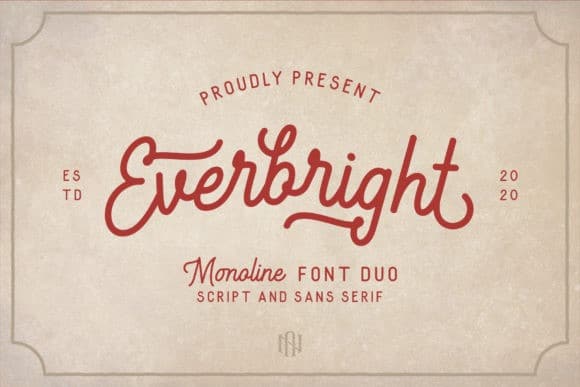
Everbright Display Font
Everbright Display Font is an exquisite handwritten font, masterfully designed to become a true favorite. It’s designed and shared by Nyalaapi. Fall in love with its incredibly distinct and timeless style and use it to create spectacular designs!. Everbright is perfectly suited to signature, stationery, logo, typography quotes, magazine or book cover, website header, flyer, clothing, branding, packaging design and more.